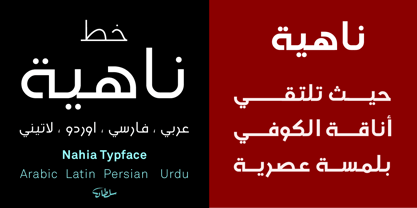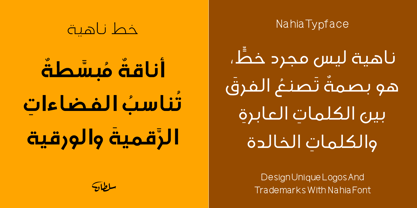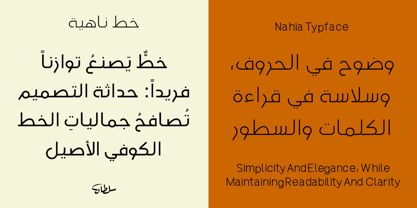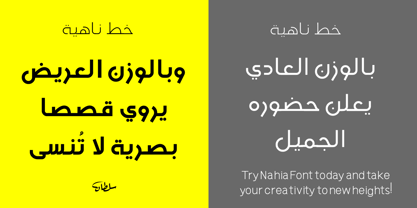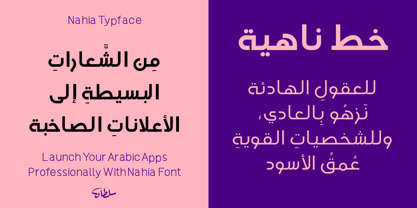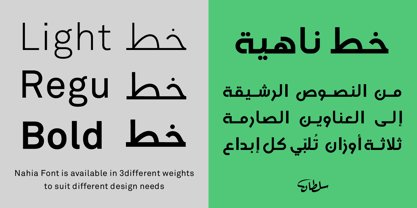
SF Nahia
von Sultan Fonts
Die Schriftfamilie SF Nahia wurde von Sultan Maqtari entworfen und von Sultan Fonts veröffentlicht. SF Nahia enthält 3 Stile und Familienpaketoptionen.
Nahia: A Contemporary Kufic Typeface
Nahia is a contemporary Kufic typeface designed by Sultan Maqtari in 2006. This font is characterized by its clear and upright letterforms, offering excellent legibility. It comes in three versatile weights: Thin, Regular, and Bold, providing flexibility for various design needs.
Nahia is well-suited for a wide range of applications, including:
• Headlines
• Long texts
• Logos
• Print materials
• Advertisements
The font supports Arabic, Farsi, Urdu, and Latin languages, making it a versatile choice for multilingual projects.